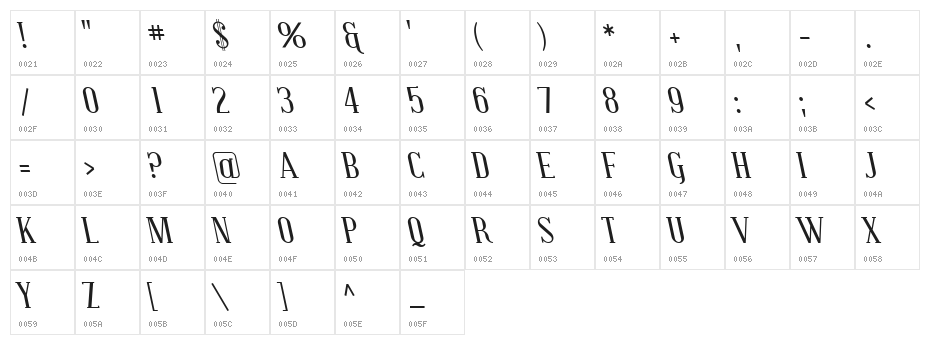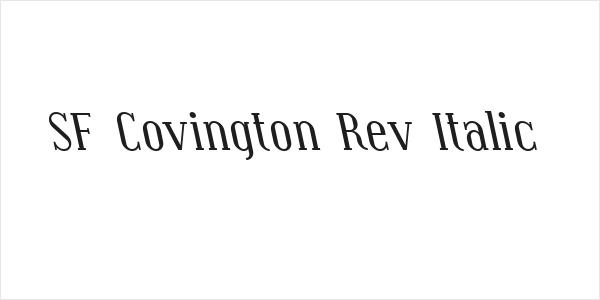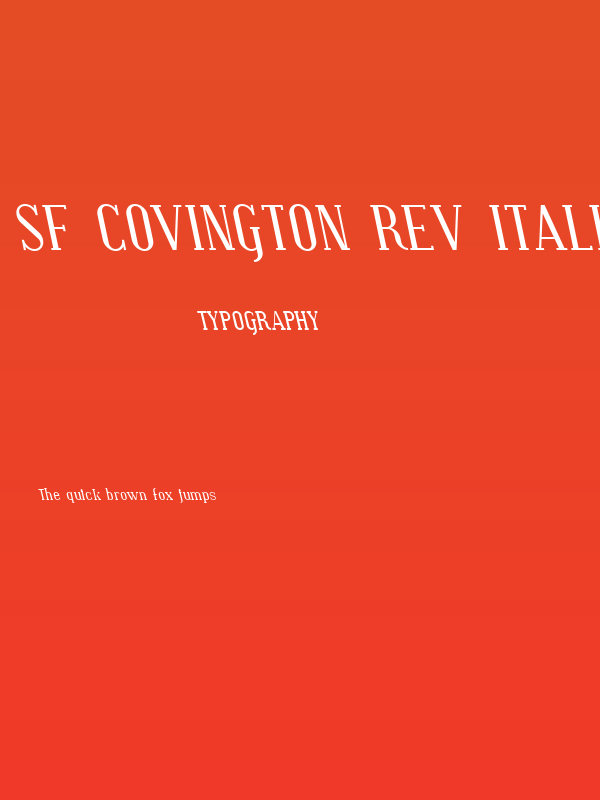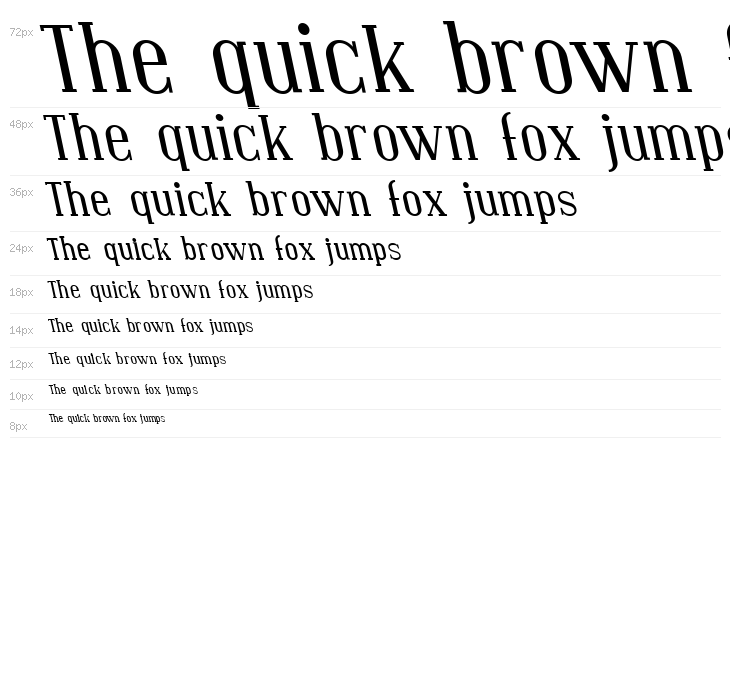
SF Covington Rev Italic Font
SF Covington Rev Italic Description
This font features a classic serif style with a modern twist, characterized by its elegant and slightly italicized form. The letters have a refined and sophisticated appearance, with thin, elongated serifs that add a touch of grace. The uppercase letters are tall and commanding, while the lowercase letters maintain a consistent flow, enhancing readability. Numbers are well-proportioned, and the special characters are distinct, ensuring clarity in various contexts. The overall design is balanced, making it suitable for both formal and contemporary applications.
| Proposed Projects | Ideal for editorial design, book covers, formal invitations, and branding materials that require a touch of sophistication. |